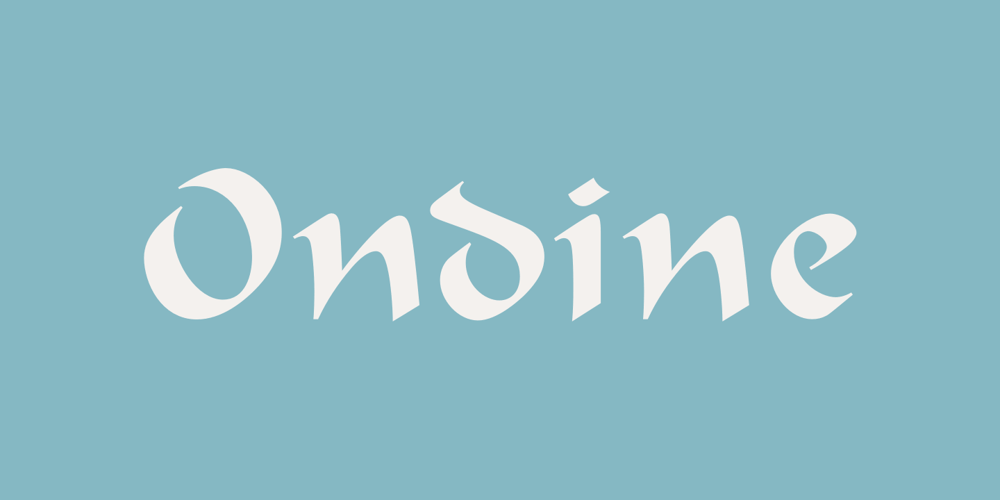
Ondine Font Family was designed by Adrian Frutiger and published by Linotype. Ondine contains 1 styles and family package options. Ondine is one of the early typefaces of Adrian Frutiger. It looks as though it were written with a broad tipped pen, however, Frutiger actually cut the forms out of a piece of paper with scissors. The forms of Ondine are reminiscent of the humanist period, the high point of the Italian Renaissance text typefaces of the 15th century. This movement was centered in Florence, the base of the Humanist movement overall, and the home of a famous type school of the time. The main goal of the educated writers was to faithfully recreate the writing of the admired literary works, whose aesthetic was as important as their content. Ondine displays a regular and open character. Texts set in this typeface give the impression of being hundreds of years old. Ondine should be used in point sizes of 12 and larger and is best for short texts and headlines.